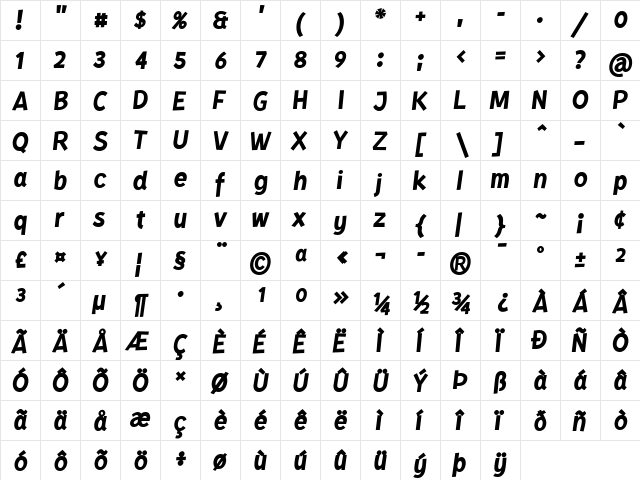
Kurri Island Italic Med Regular
Design Context for Kurri Island Italic Med Typeface
Kurri Island Italic Med offers clean, dependable letterforms without strong stylistic allegiance, making it a practical choice for designers who need flexibility. The slanted form adds forward momentum and visual energy.
Pro Tip: Try Kurri Island Italic Med for annotation and caption copy alongside an upright companion — the contrast in angle creates a dynamic but ordered typographic system.